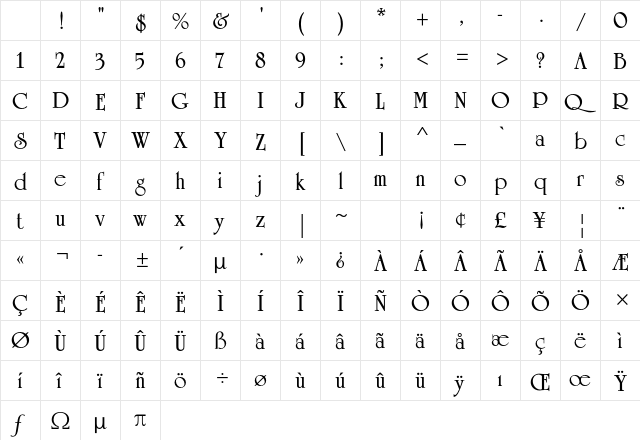
University Roman Std Bold
Designer: Timothy Donaldson
Design Context for University Roman Std
University Roman Std is a composed and adaptable typeface that performs quietly and consistently across a wide range of design contexts. Its bold stroke weight gives it real presence on the page.
Pro Tip: Use University Roman Std in both headline and body roles to test its range before committing to a single application.